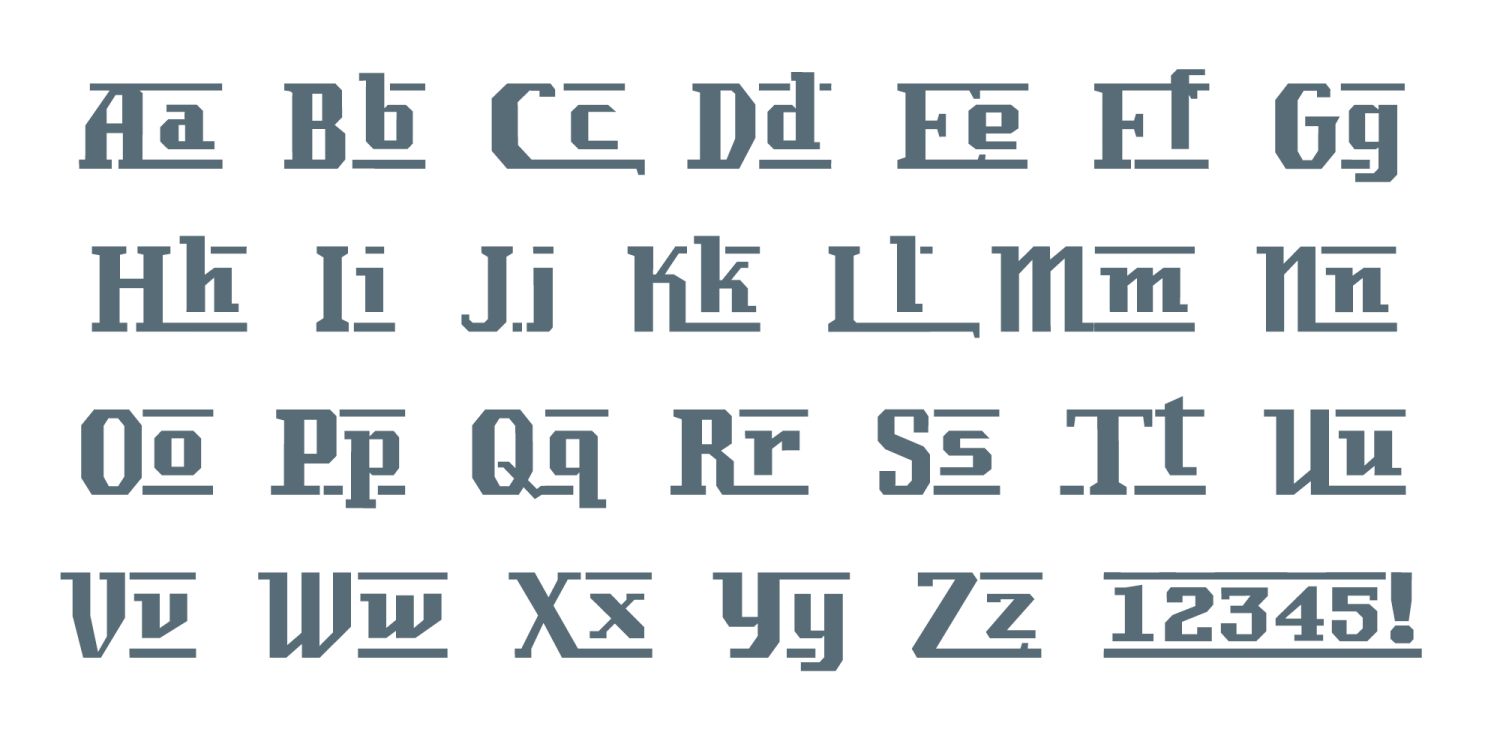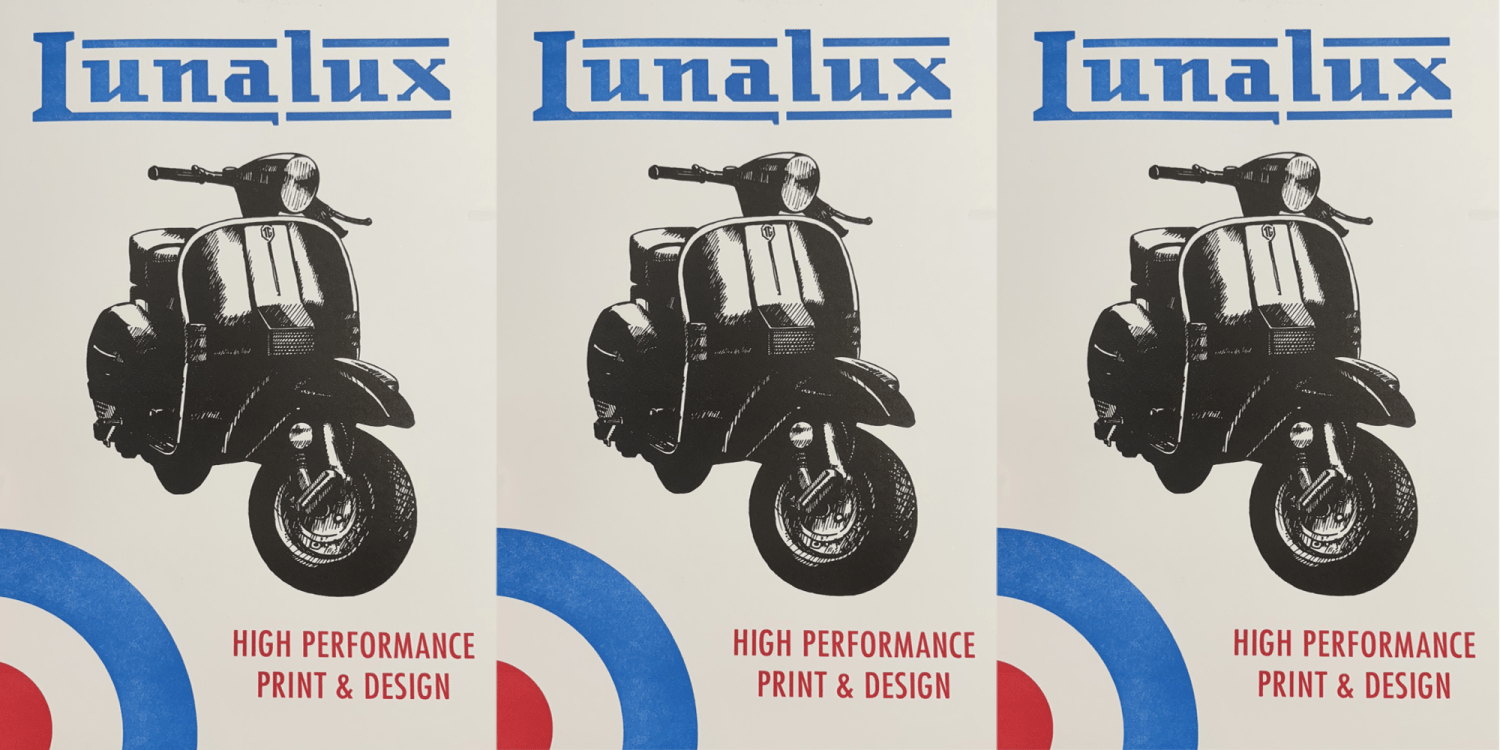
Lambrettista
Font Family by Chank Co
Hey hipster, come get a load of this antique Italian instant logofont! You just type a word and boom! you get a classic vintage-style logo. It's got nifty style bars above and below to give any word just a bit of extra pizazz, Inspired by vintage Italian scooter design and ready for you in convenient OpenType format.